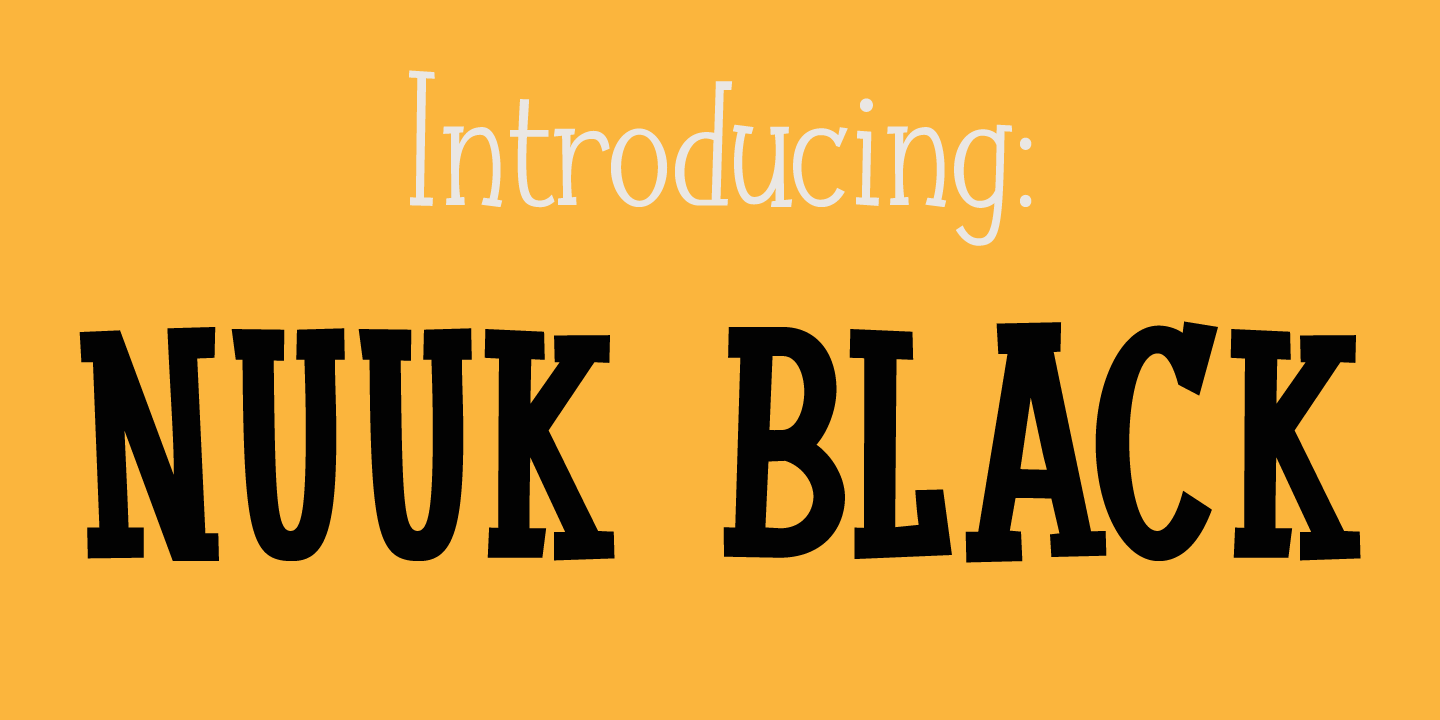
The Nuuk Font is perfect for various design applications including Arctic-themed branding, outdoor adventure marketing, travel agency materials, environmental campaigns, cold climate product packaging, Nordic lifestyle graphics, winter sports promotions, and nature documentary titles. This distinctive typeface works exceptionally well for brands that want to evoke feelings of pristine wilderness and northern authenticity.
What makes Nuuk Font exciting is its clean and pristine character that instantly conveys the pure essence of Arctic landscapes and Nordic simplicity. The font features crisp letterforms with minimalist elegance and natural flow that evoke feelings of clarity and untouched beauty. Its sophisticated styling and authentic appearance make it perfect for brands that want to connect with audiences seeking genuine, sustainable, and environmentally conscious experiences.
The Nuuk Font family includes multiple weights and styles, offering designers flexibility for diverse Nordic-themed applications. The family typically consists of regular, bold, light, and condensed variations, along with extended options, providing comprehensive coverage for projects that need both functionality and authentic northern character.
Whether you're working on sustainable branding, outdoor equipment marketing, or Arctic tourism campaigns, Nuuk Font Free Download delivers the authentic quality and visual purity that modern designers seek. The font's Nordic design combined with its excellent readability makes it an essential choice for creating compelling visual communications that capture the spirit of northern landscapes and pristine environments.